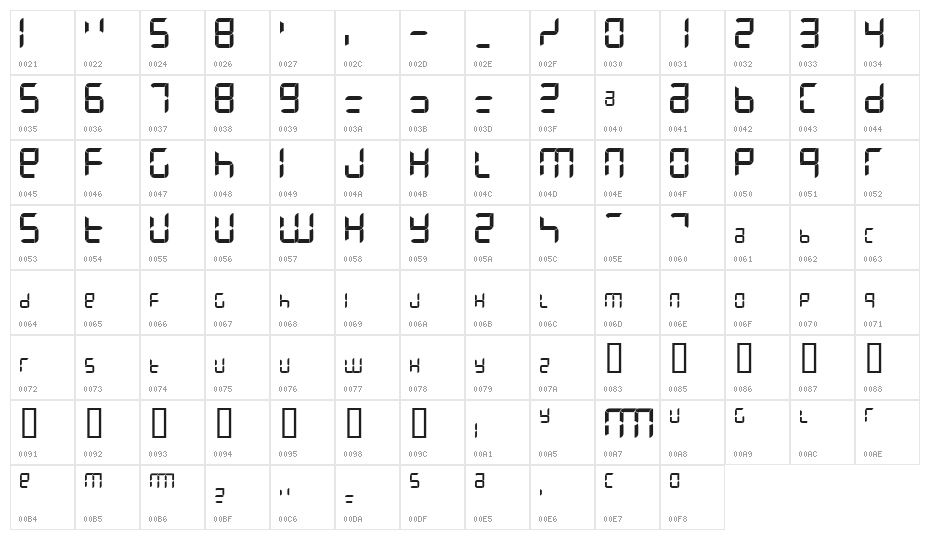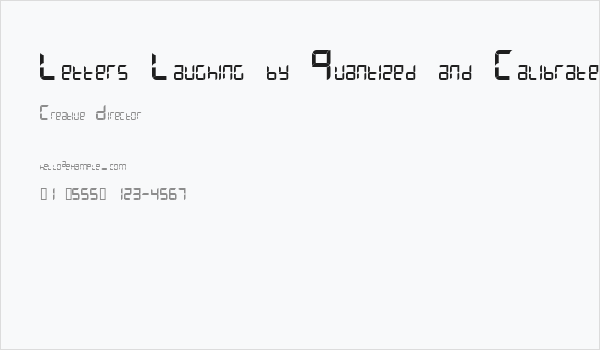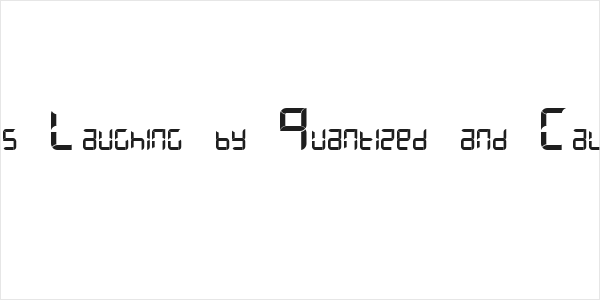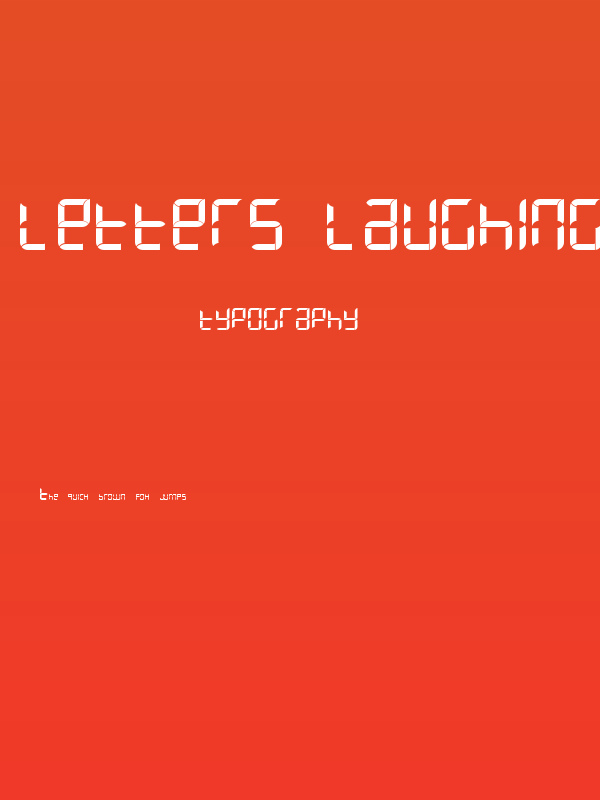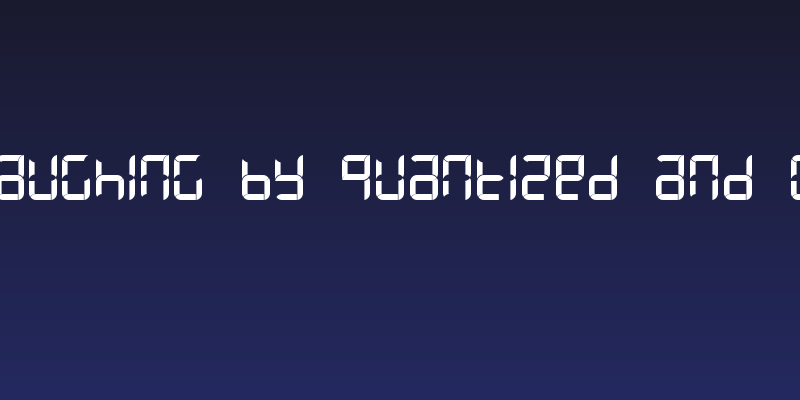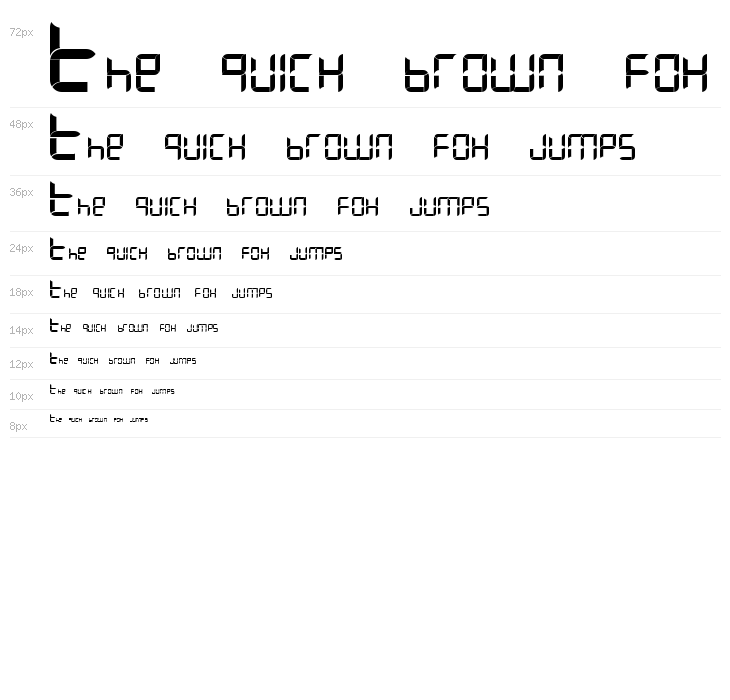
Letters Laughing by Quantized and Calibrated Font
Letters Laughing by Quantized and Calibrated Description
This font features a digital, segmented style reminiscent of LED displays. Each character is constructed from a series of straight lines and angles, creating a geometric and technical appearance. The font is highly legible and distinct, with a futuristic and modern aesthetic. Its uniformity and precision make it ideal for digital interfaces or technology-themed designs. The characters are evenly spaced, and the overall design is consistent across both uppercase and lowercase letters, as well as numbers and special characters.
| Use Case | Headlines, Digital interfaces, Tech branding |
| Proposed Projects | Ideal for digital displays, tech-themed projects, futuristic branding, and electronic device interfaces. |